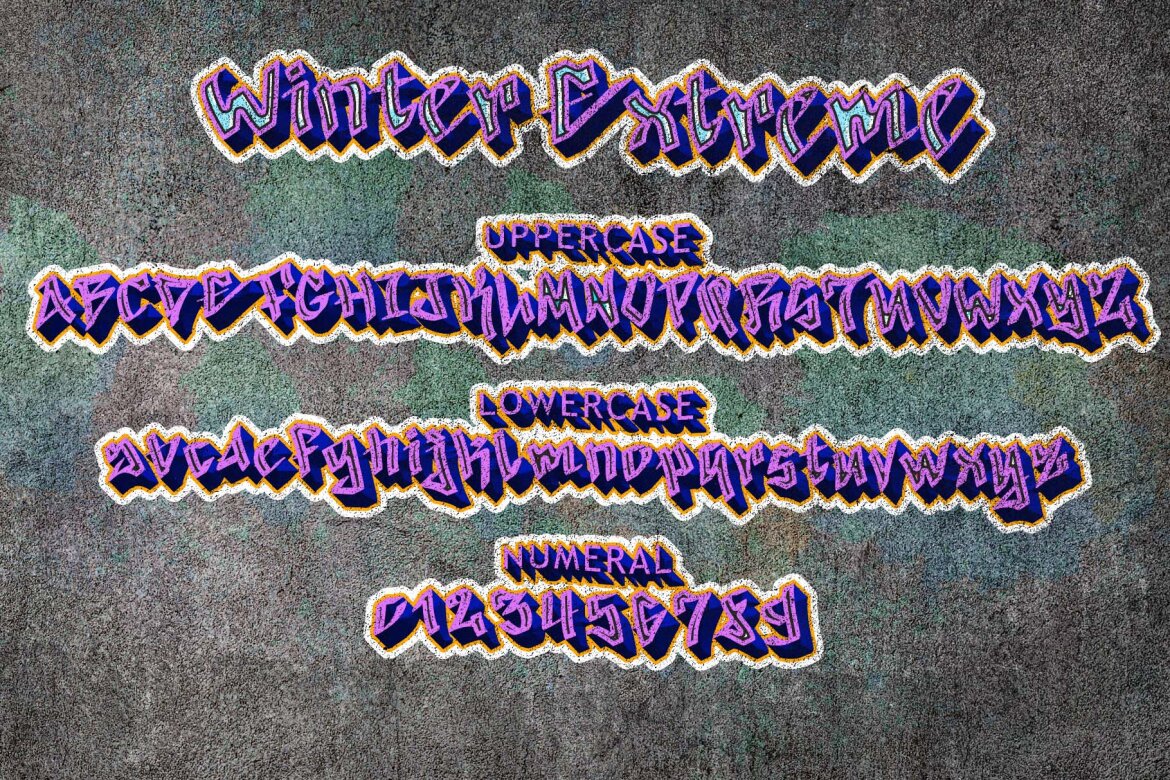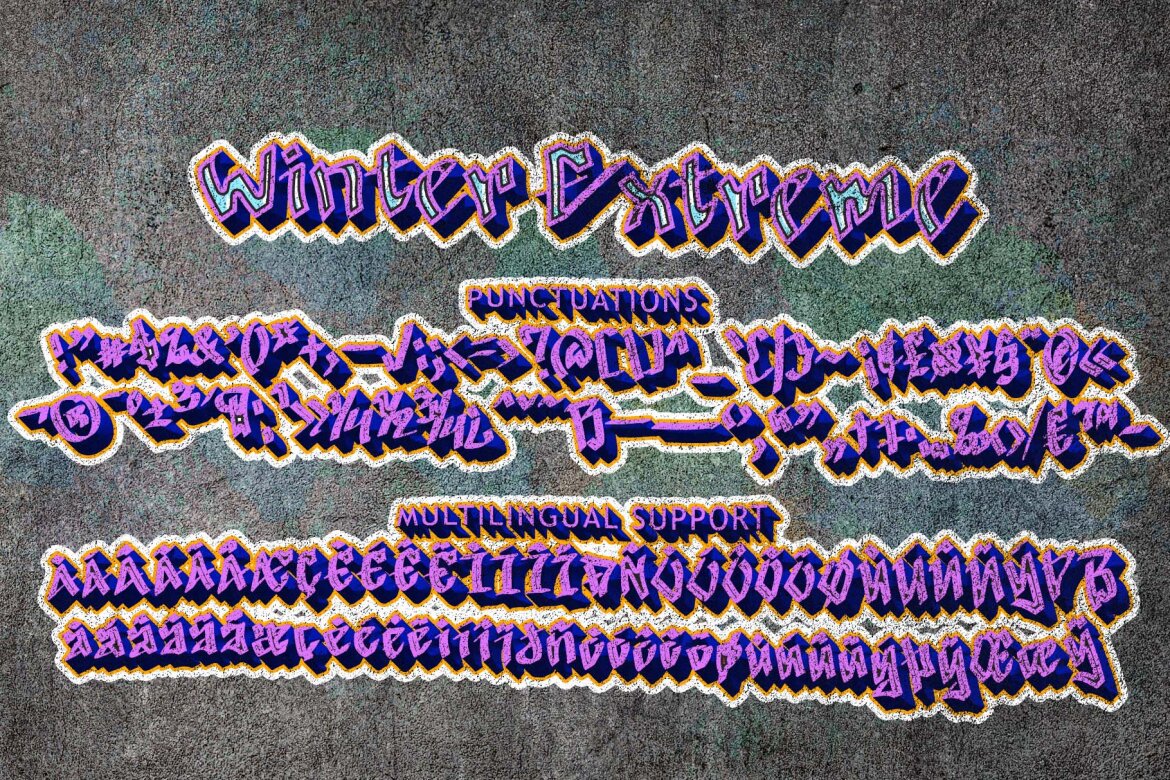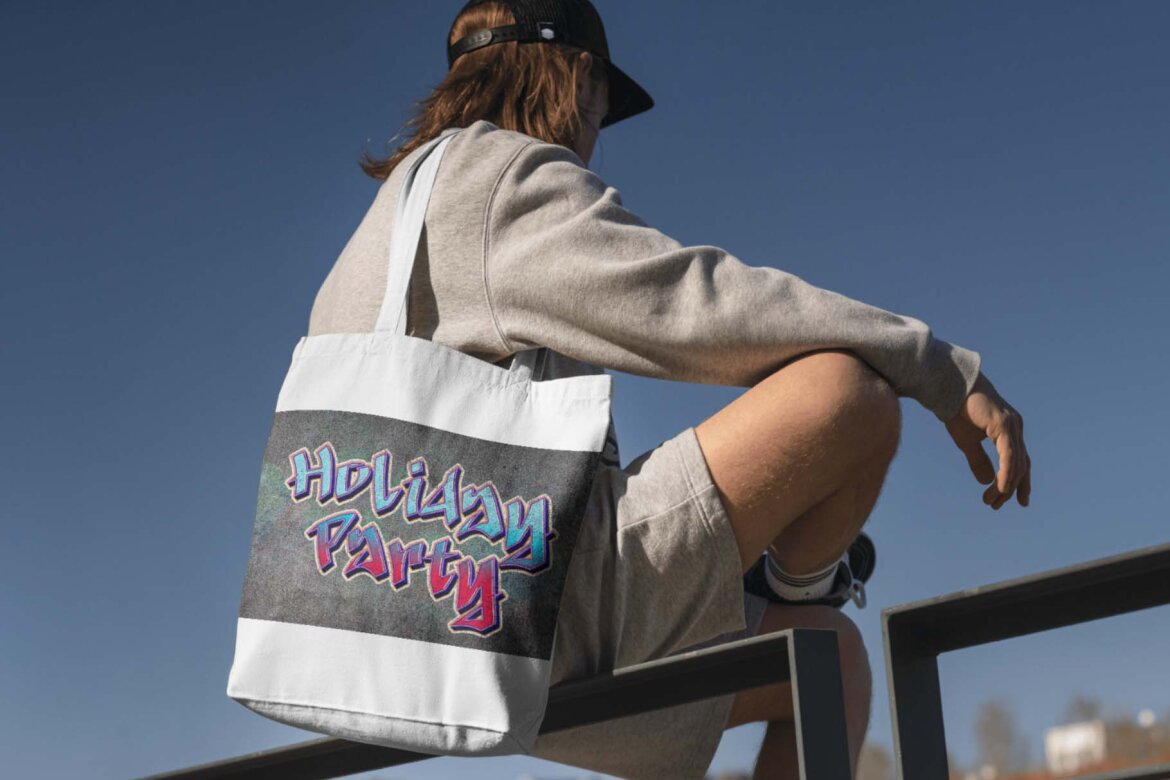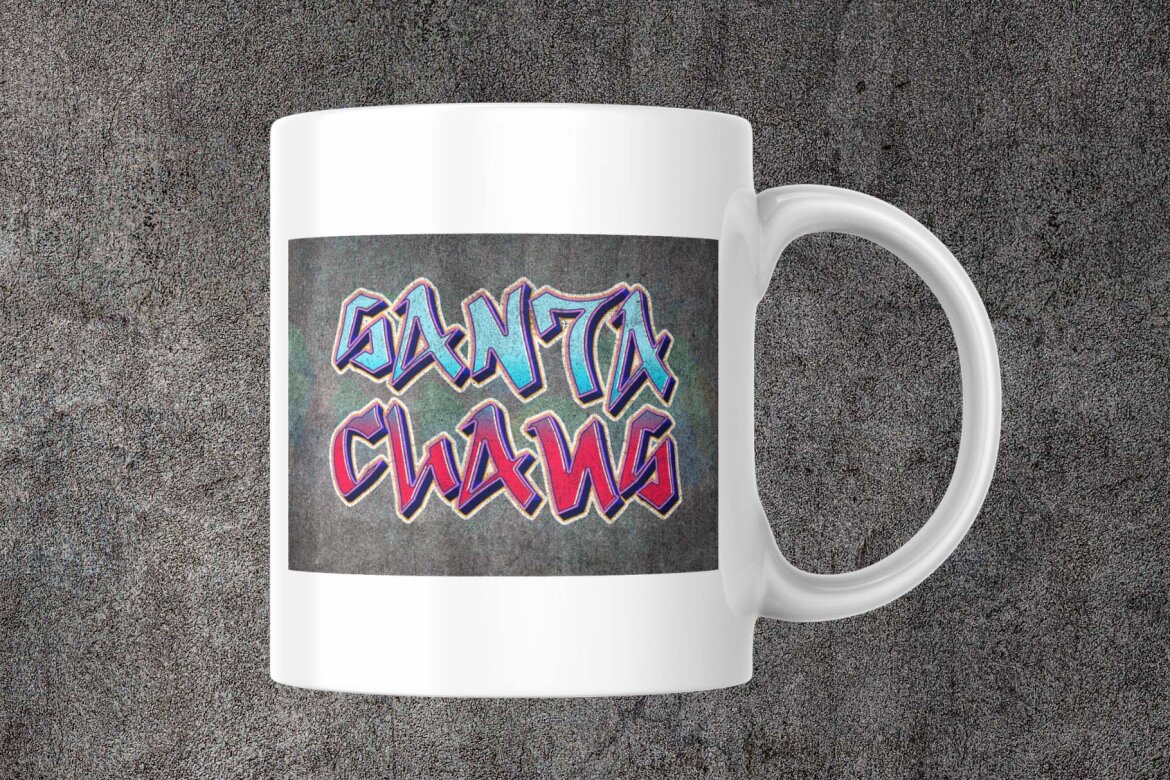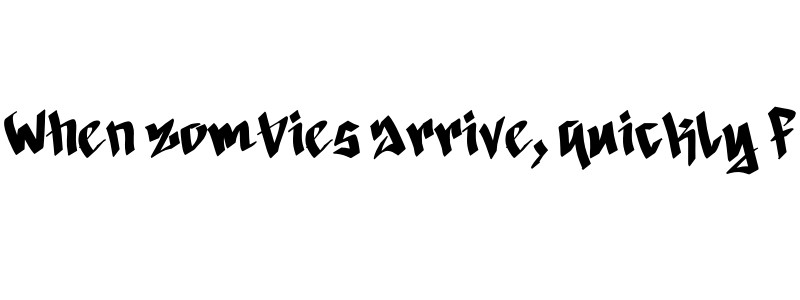
Winter Extreme FREE Font
Winter Extreme
“Winter Extreme” is a unique and elegant graffiti font. It comes with capital letters, lowercase letters, numbers, punctuation marks, and multilingual support. It is perfect for winter, invitations, Christmas, street murals, logos, banners, branding, stickers, posters, and more.
• lowercase
• numeral
• punctuations
• uppercase